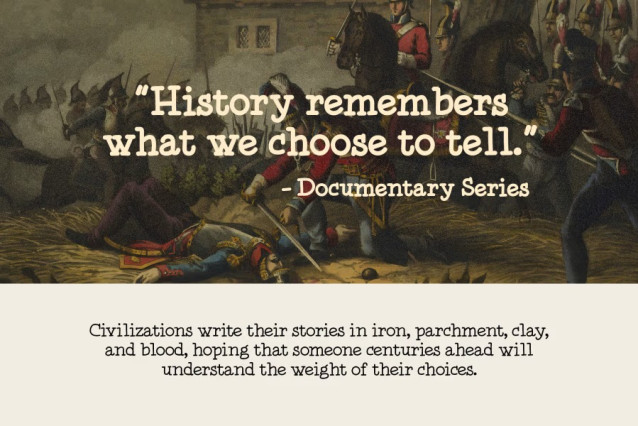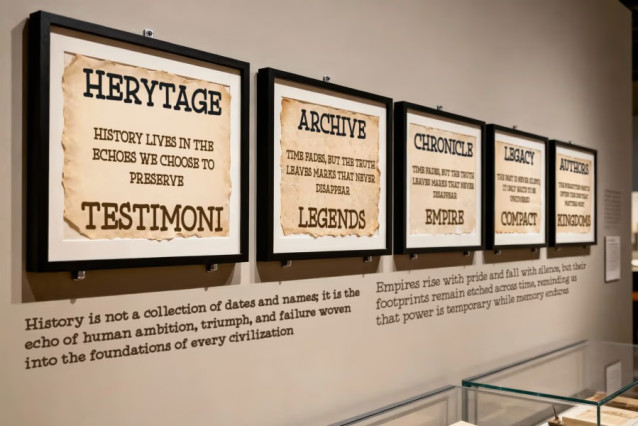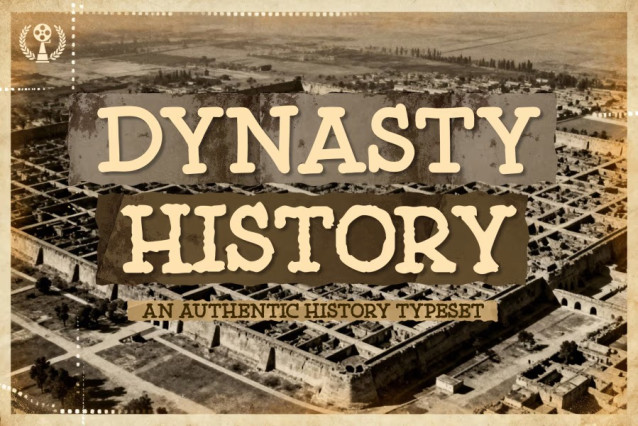
Dynasty History Font Family
Dynasty History Font Family is a handcrafted documentary-inspired typeface designed to evoke timeless archives, ancient chronicles, and classic historical storytelling. Its rugged texture and bold character make it perfect for film titles, posters, museum visuals, and editorial layouts that demand authenticity.
Dynasty History is a vintage documentary typeface crafted to capture the atmosphere of old archives, weathered manuscripts, and forgotten civilizations. With its textured edges, bold structure, and evocative shapes, this font delivers a dramatic sense of age and realism that elevates any historical or narrative based project.
Perfect for documentary films, archaeology themes, museum exhibitions, editorial spreads, biography covers, and atmospheric storytelling visuals. Dynasty History blends handcrafted imperfection with strong readability, allowing your titles and layouts to feel both cinematic and historically grounded.
Whether you’re designing a film poster, creating title cards, crafting historical branding, or building immersive promotional assets, Dynasty History adds depth, authenticity, and a timeless visual voice.